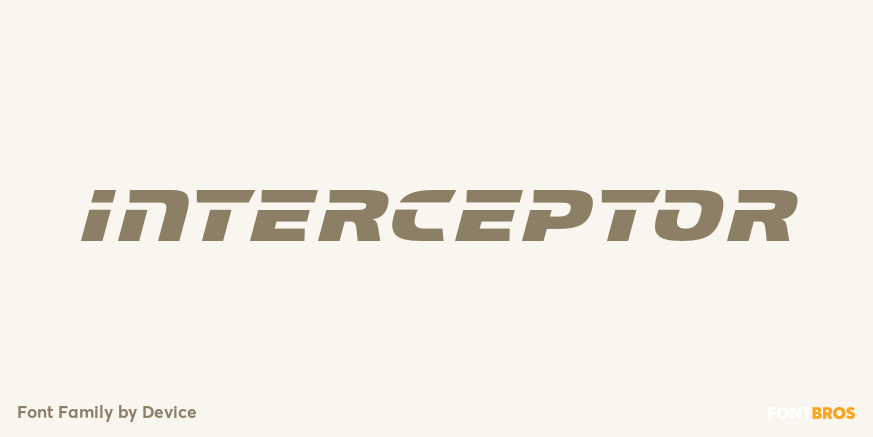
HomeFont BrosFuturisticInterceptor FuturisticSpecial Effect Interceptor FacebookXPinterestWhatsApp 1 of 1 About Interceptor should be used on cherry-red jacked up Ferraris and brainless summer blockbuster action movies.  DOWNLOAD ON FONT BROSThis font is sold and delivered by Font Bros. Font Canyon may earn a commission if you buy through this link. People also explored Alabastha Font Lovely Christmas Font Sunday Christmas Font Cipsta Scipt Font With Snowman Font Flaherty Charlote Countdown Font Flagsy Font Thing King Font 228 0 TagsInterceptor Font Previous articleMiniver ProNext articleFilmotype Rose LEAVE A REPLY Cancel reply Comment: Please enter your comment! Name:* Please enter your name here Email:* You have entered an incorrect email address! Please enter your email address here Website: Save my name, email, and website in this browser for the next time I comment. Personal Use Free Child Writing Free Personal Use Free Read more about this font Foo Personal Use Free Read more about this font Built Tilting Personal Use Free Read more about this font Sui Genesis Personal Use Free Read more about this font BLOG To increase your work productivity, choose the most readable fonts. In today's fast-paced work environment, where digital communication and information consumption are integral to our daily routines, the choice of fonts can significantly impact... Where to Buy American Fonts Online in 2024 Top 10 Handwritten Fonts That Elevate Your Designs Fonts That Capture the Spirit of New York City